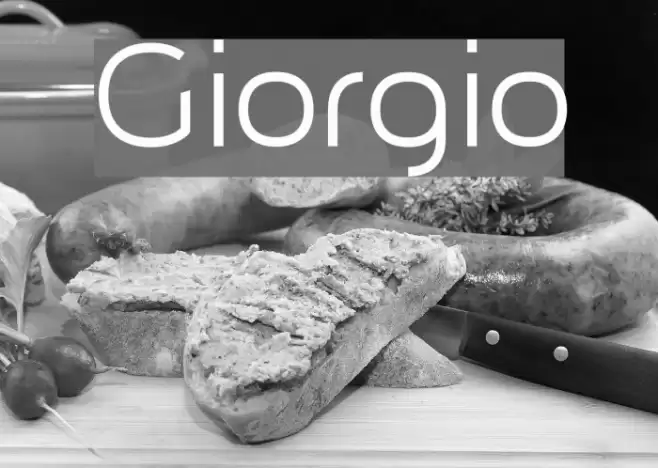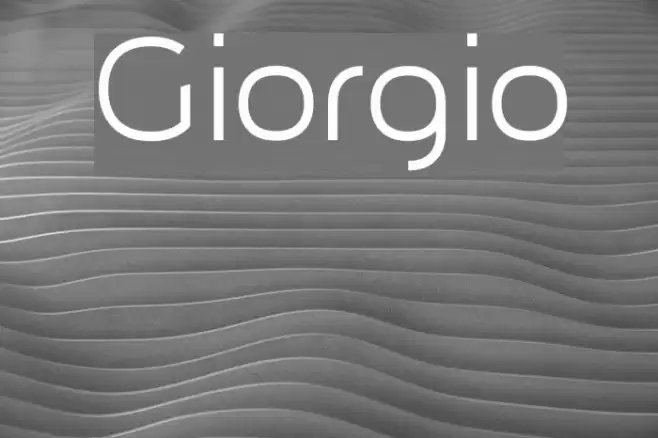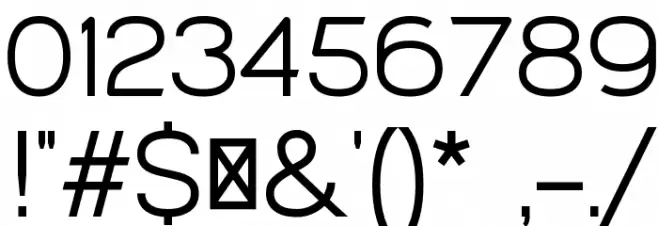
Giorgio Font
Giorgio Description
This font presents a clean and modern aesthetic with a geometric sans-serif style. The characters are well-proportioned, featuring a uniform stroke width that contributes to its sleek and contemporary appearance. The uppercase and lowercase letters maintain a harmonious balance, with rounded edges that soften the overall look. The numerals are clear and legible, matching the style of the alphabetic characters. Special characters are included, maintaining the same design consistency. This font is versatile, suitable for a variety of digital and print applications, offering clarity and readability.
A modern, geometric sans-serif font with clean lines and rounded edges from Uncategorized fonts.
- Proposed Projects: Ideal for branding, web design, advertising, and editorial layouts.